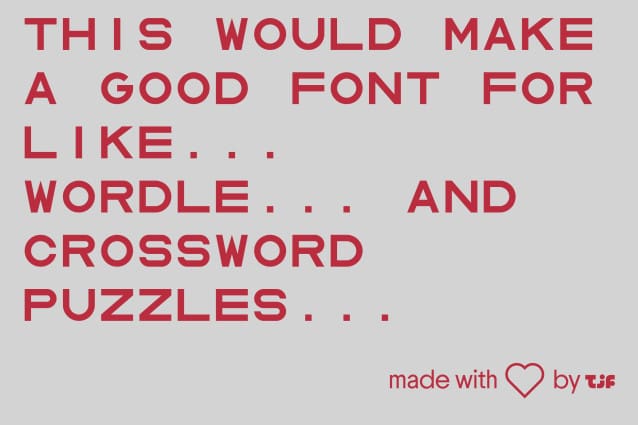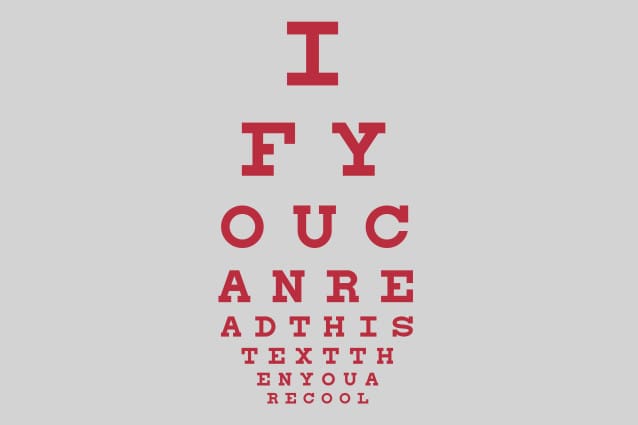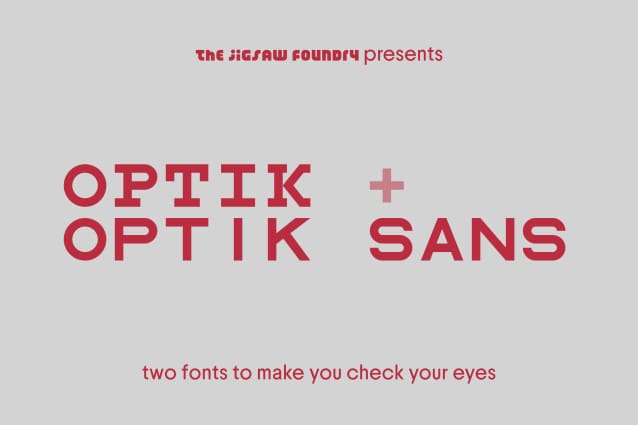
TJF Optik Font
TJF Optik Font – mini-superfamily is based off of many a trip to the doctor’s for a half-annual checkup. Ya know, when they make you look at the chart and say the letters with one eye open? TJF Optik is based off of the charts with slab-serif letters by Herman Snellen, whereas TJF Optik Sans is based off of the charts with grotesque letters by Doctor Louise Sloan. The E in Optik Sans is based off of the spinning E charts and so on and so forth…. All the letters in both fonts were made on a 20×20 grid, but most letters follow 5×5. Each letter takes up a square, but Stylistic Set 1 includes proportional alternates that turn the font from monospace to Triospace. Optik Sans also has this, but without the wider ones – meaning it’s duospaced.